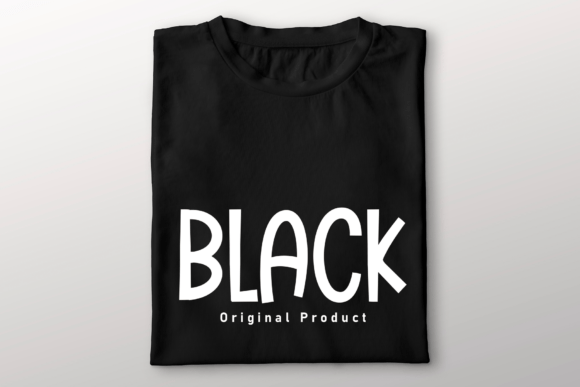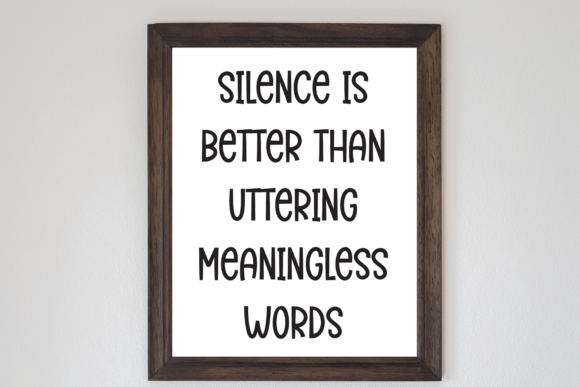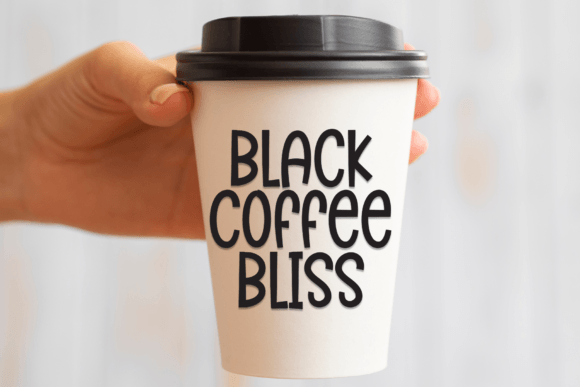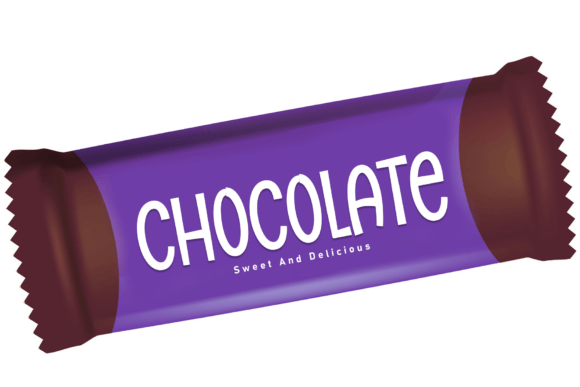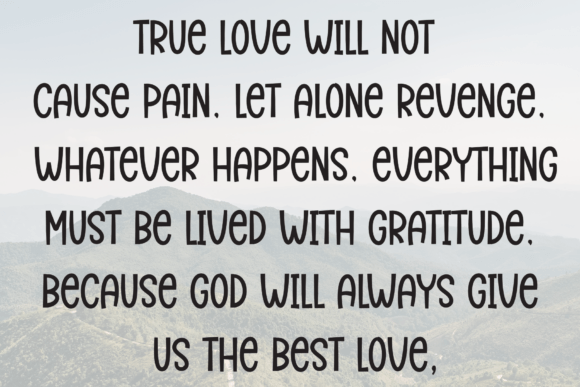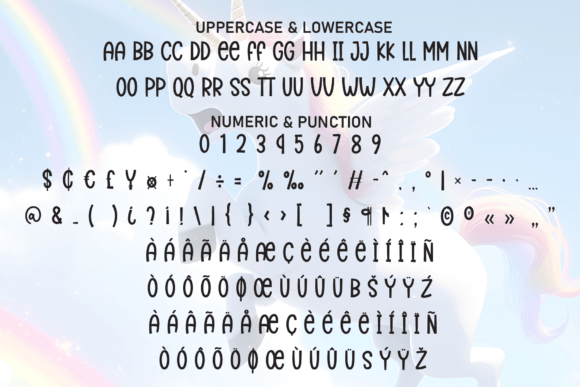
Introduction to Simple Unicron Font
Do you remember the feeling of excitement and joy when you’re brainstorming ideas for your next creative project? The spark of inspiration hits, and you can’t wait to bring your vision to life. That’s exactly what happens when you discover the perfect design resource, and for many designers, the Simple Unicron Font is that game-changer.
Infused with a dash of sweetness and radiant friendliness, this delightful handwritten display font is the perfect addition to any design looking to smile with a playful twist. Whether you’re creating wedding invitations, greeting cards, or any other project that requires a touch of whimsy, the Simple Unicron Font is sure to impress.
Key Features of Simple Unicron Font
- High quality, vector-based font design, perfect for creative projects and design resources.
- Available in a transparent background, allowing for easy customization and versatility.
- Font size: 256 glyphs, covering a wide range of characters and languages.
- Unique characteristics include its clean, modern design and versatility in various design applications.
Honest Review: Simple Unicron Font
I recently had the chance to work with the Simple Unicron Font, and I must say, it’s been a game-changer for my creative project. This font is perfect for anyone looking for a high-quality, free design resource.
- ✨ Unique and futuristic design aesthetic, perfect for sci-fi themed projects
- ✨ Transparent background, allowing for easy customization and layering
- ✨ High-quality vector files for crisp and clean rendering
- ⚠️ Limited character set, which can be a challenge for longer text-based projects
- ⚠️ Not ideal for small text sizes, as the font can appear blurry
Overall, I’m really impressed with the Simple Unicron Font. Its unique design and high-quality vector files make it a valuable addition to any designer’s toolkit. While it may not be perfect for every project, it’s definitely worth considering for your next creative endeavor.
The Simple Unicron Font is perfect for various design projects, including logo designs, branding materials, and marketing collateral. Its high-quality design and transparent background make it an excellent choice for creative professionals and non-designers alike.
To get the most out of the Simple Unicron Font, experiment with different font sizes, colors, and styles to find the perfect combination for your project. You can also pair it with other design elements, such as graphics and images, to create a visually appealing design.